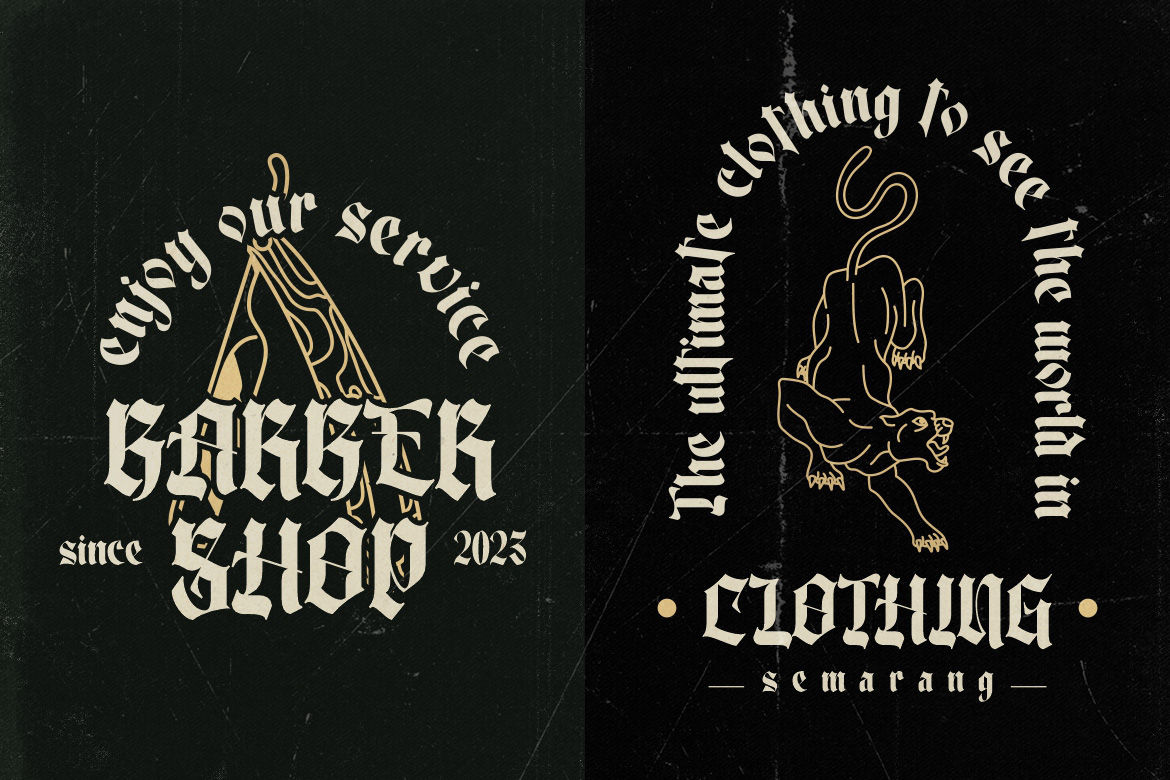
Blackletter Font: The Bold Heritage of Typography
Blackletter fonts pull you in. You can tell right away they’re old. Something serious. Walk past a tattoo parlor with a blackletter sign, flip open a luxury magazine, or catch The New York Times masthead, and it hits you, there’s weight to these letterforms. Most modern fonts don’t grab attention like blackletter does.
Many people have wondered why designers are drawn to such an old, heavy style. But the reason becomes clear upon closer thought: that’s exactly what makes it powerful. Blackletter works because it carries weight and meaning. It holds centuries of history in every stroke.
How Blackletter Actually Started
Blackletter came from 1100s Europe. Gothic buildings were popular back then, with tall arches and bold shapes. Writing started to look the same way.
Monks wrote by hand with quill pens on manuscripts. This is how blackletter began. The physics of how a quill pen works created those thick downstrokes and thin connectors naturally.
No one sat down and said, “Let’s invent blackletter”. It just happened. The tool shaped the letterforms. But when people saw what emerged, they recognized something powerful, something important. So they kept doing it that way. For centuries.
Why This Old Font Never Actually Died
Most typefaces have a lifespan. They trend, they fade, they become the visual equivalent of a haircut from 2008. Blackletter is different. Blackletter has lasted nearly 1,000 years. It works because it sends a message before you even read the words.
The Authority Angle
Universities. Government institutions. The New York Times. These places use blackletter for a reason. The font says, “We’ve been here a while and we mean business.” It looks legitimate, knowledgeable, and trustworthy.
The Rebellion Angle
Funny thing: the same serious font also became popular with rebels and punk bands. Punk bands grabbed it. Tattoo artists loved it. Streetwear brands started using it on purpose, specifically because it was so formal and so heavy and so not what you’d expect from a rebellious brand.
By using what was meant to be serious and dignified in an edgy context, they made it feel dangerous. Subversive. Real.
The Luxury Angle
Then there’s the money angle. High end brands figured out that blackletter communicates craftsmanship. You see it on wine bottles, whiskey labels, artisanal everything.
The font signals that what’s inside was made carefully, thoughtfully, with intention. It suggests heritage even if the product is brand new. That’s powerful marketing, and it works.
Used thoughtfully, blackletter becomes more than decoration; it becomes a statement of identity, heritage, and intention that resonates far beyond the page for modern creators.
How to Use Blackletter Fonts Effectively
Blackletter has a way of taking over your whole design if you use too much of it. Yeah, it looks bold and beautiful, but it’s heavy and detailed too. The real secret is holding back. Here are the best ways to work with blackletter:
⦁ Use it For Emphasis
Blackletter nails it for titles, headers, and logos. That’s where you want the impact. The problem starts when you try to fill paragraphs with it, especially on websites and mobile apps. Readers struggle. The letters are too detailed and heavy for comfortable reading.
The ornate letterforms just aren’t designed for readability in big blocks. But for headlines, taglines, or tattoo shop logos? That’s where blackletter shines. It grabs people’s attention instantly and makes them stop scrolling.
⦁ Pair it With Modern Fonts
Don’t use blackletter alone. Pair it with a modern font like Helvetica or Montserrat to make it look amazing. The detailed blackletter pops when it’s next to something minimal and simple.
You’ll get a design that feels both classic and current. That mix of old and new creates a balance that just works. One font gets all the personality, and the other keeps things readable and sleek.
⦁ Mind your Audience
Blackletter has a bold personality. You’ll find that some people absolutely love blackletter, but others will think it’s way too intense for what you’re doing. Before you commit to using it, think about who’s actually going to see your design. Your audience matters here.
Blackletter can elevate your message when used intentionally, so experiment thoughtfully, test different pairings, and make sure the tone matches the story you’re trying to tell in every design.
Where You’re Actually Seeing Blackletter Right Now
If you pay attention, blackletter is everywhere in contemporary design. Music logos use it constantly. Think of how iconic it looks on metal album covers. Kanye West put it on The Life of Pablo for a reason.
Supreme, Vetements, Palm Angels, these brands aren’t accidently using blackletter. It’s deliberate. It says, “We have confidence in what we’re offering.”